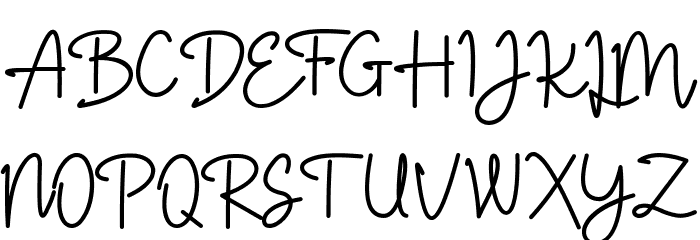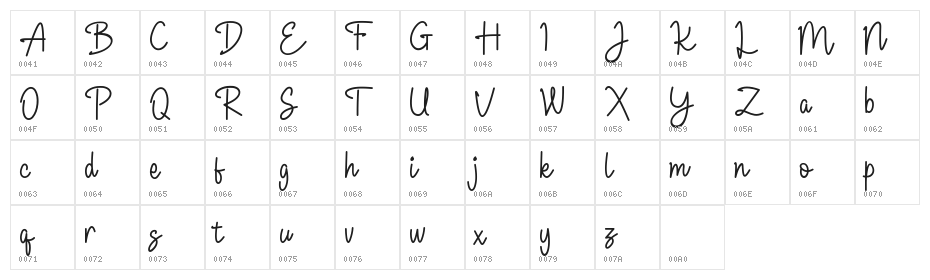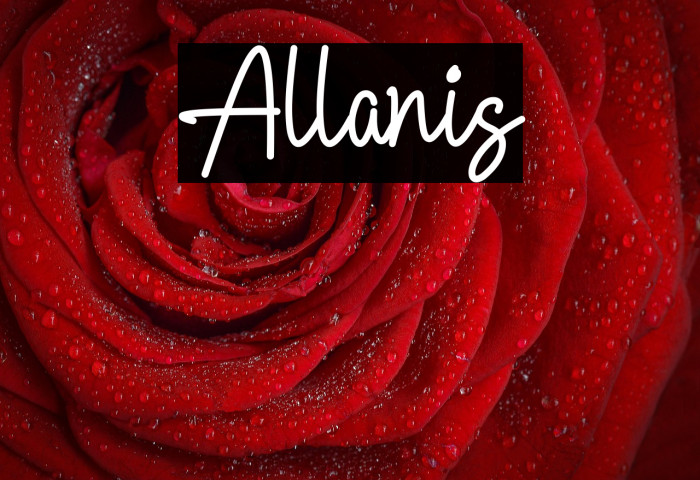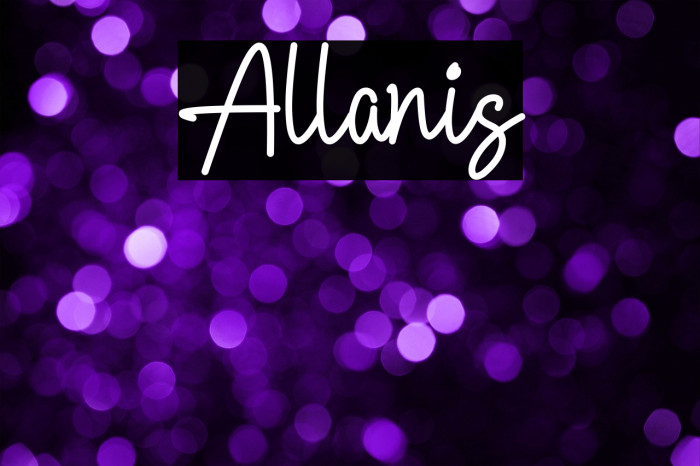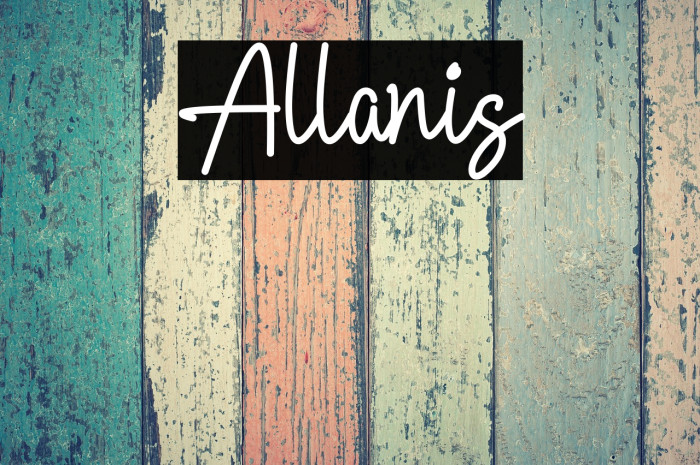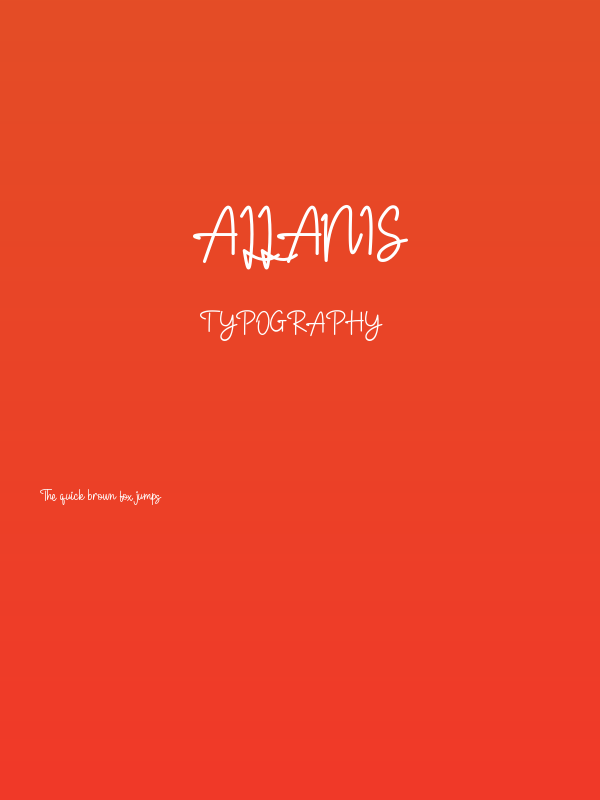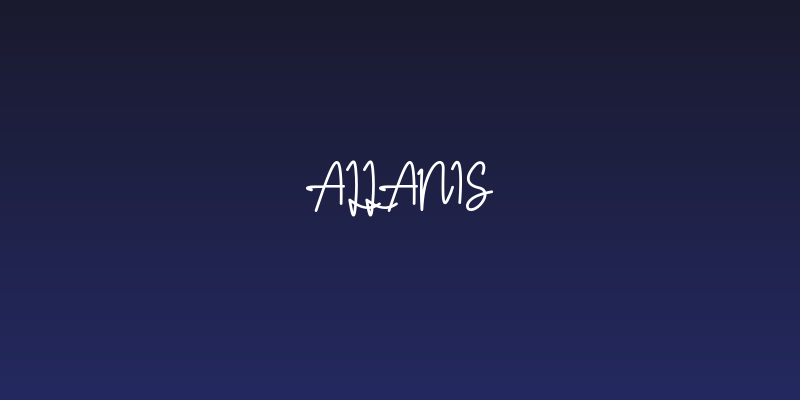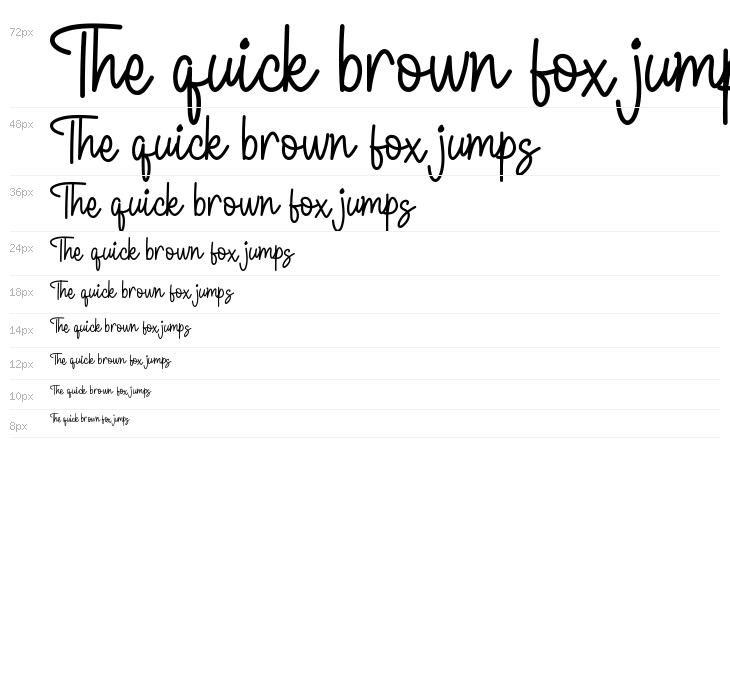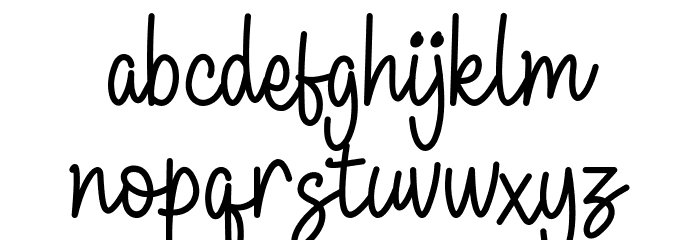
Allanis Font
Allanis Description
This font features a playful and casual script style, characterized by its flowing, connected letters that mimic natural handwriting. The uppercase letters are tall and slightly narrow, with a consistent stroke width that gives a uniform appearance. The lowercase letters are more rounded and feature a mix of loops and curves, adding a whimsical touch. The overall design is clean and legible, making it suitable for both informal and creative projects. The font's style is reminiscent of handwritten notes, providing a personal and approachable feel.
| Use Case | Logos, Invitations, Social Media |
| Proposed Projects | Ideal for greeting cards, invitations, personal branding, and social media graphics. |